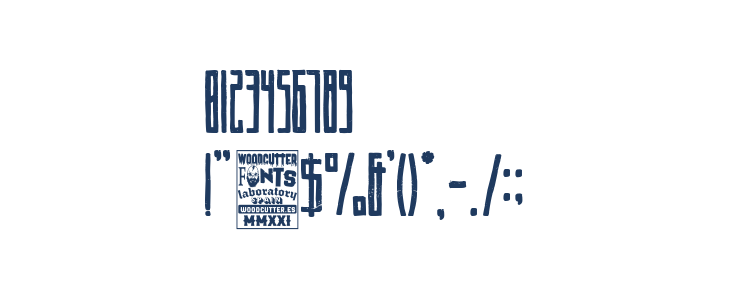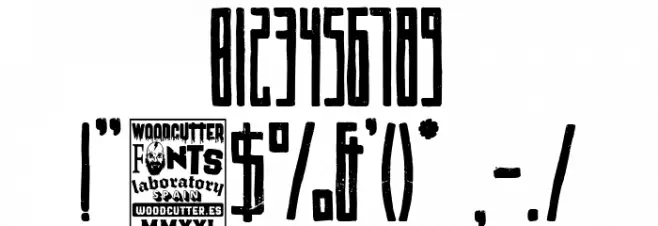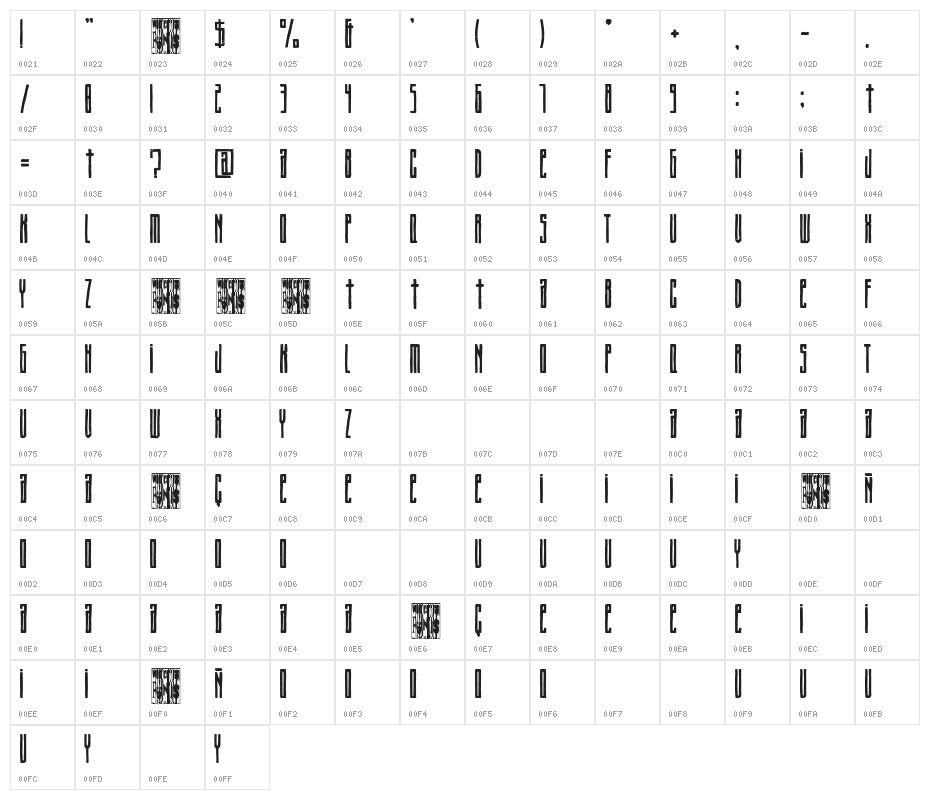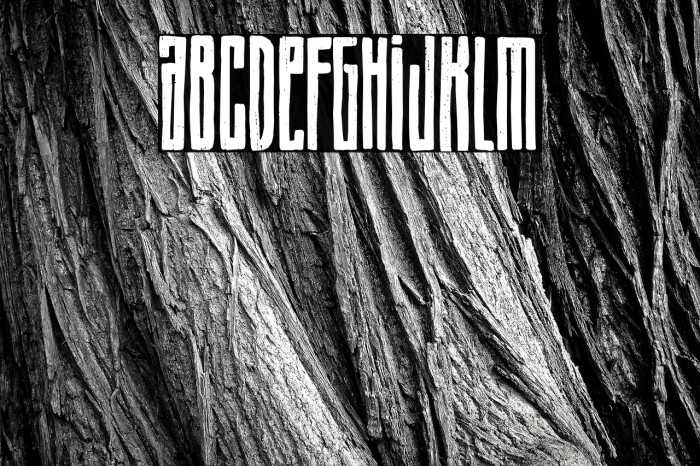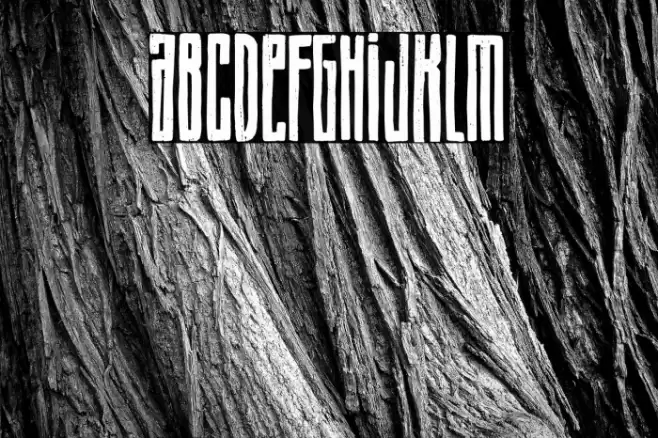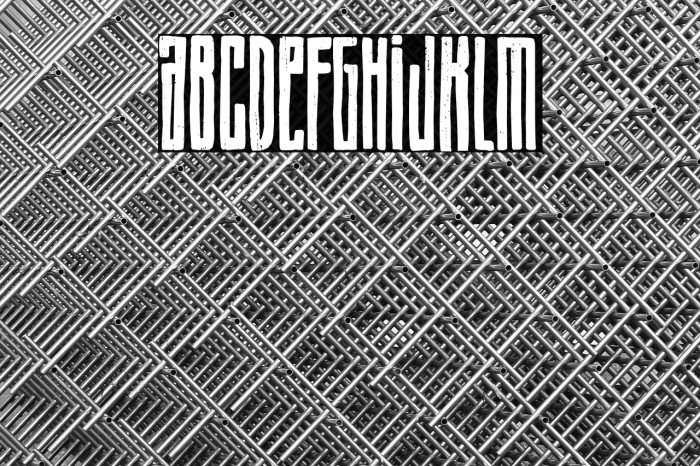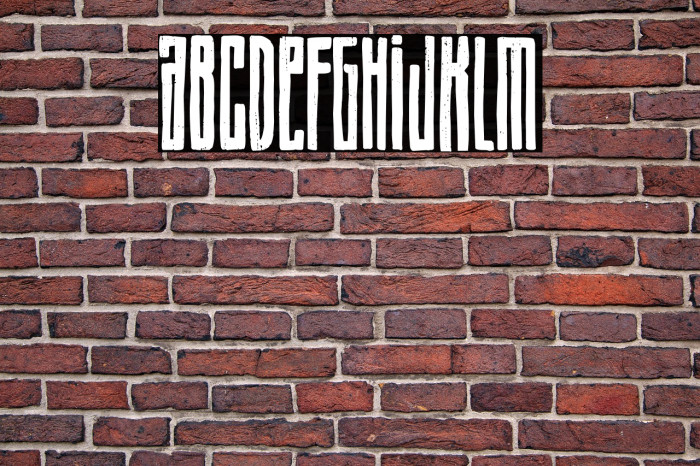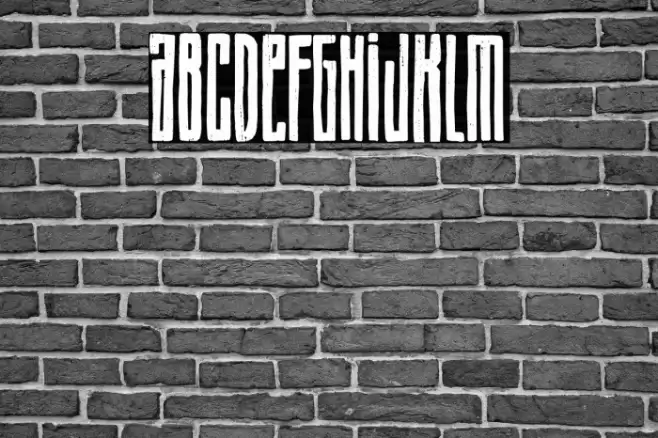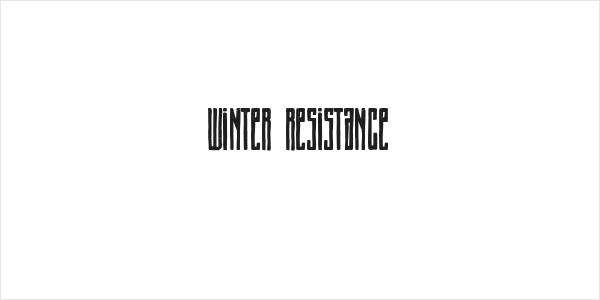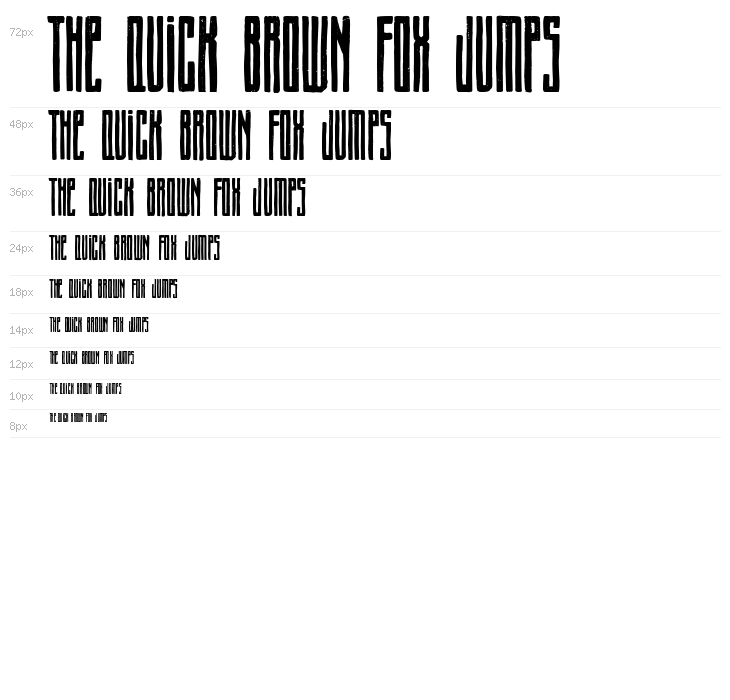
Winter Resistance Font
Winter Resistance Description
This font features a bold, condensed style with a distressed texture, giving it a rugged and vintage appearance. The uppercase and lowercase letters are tall and narrow, with consistent vertical strokes and minimal contrast. The numbers and special characters maintain the same distressed aesthetic, adding to the overall cohesive look. The font's unique texture and elongated form make it stand out, ideal for projects that require a strong, impactful visual presence.